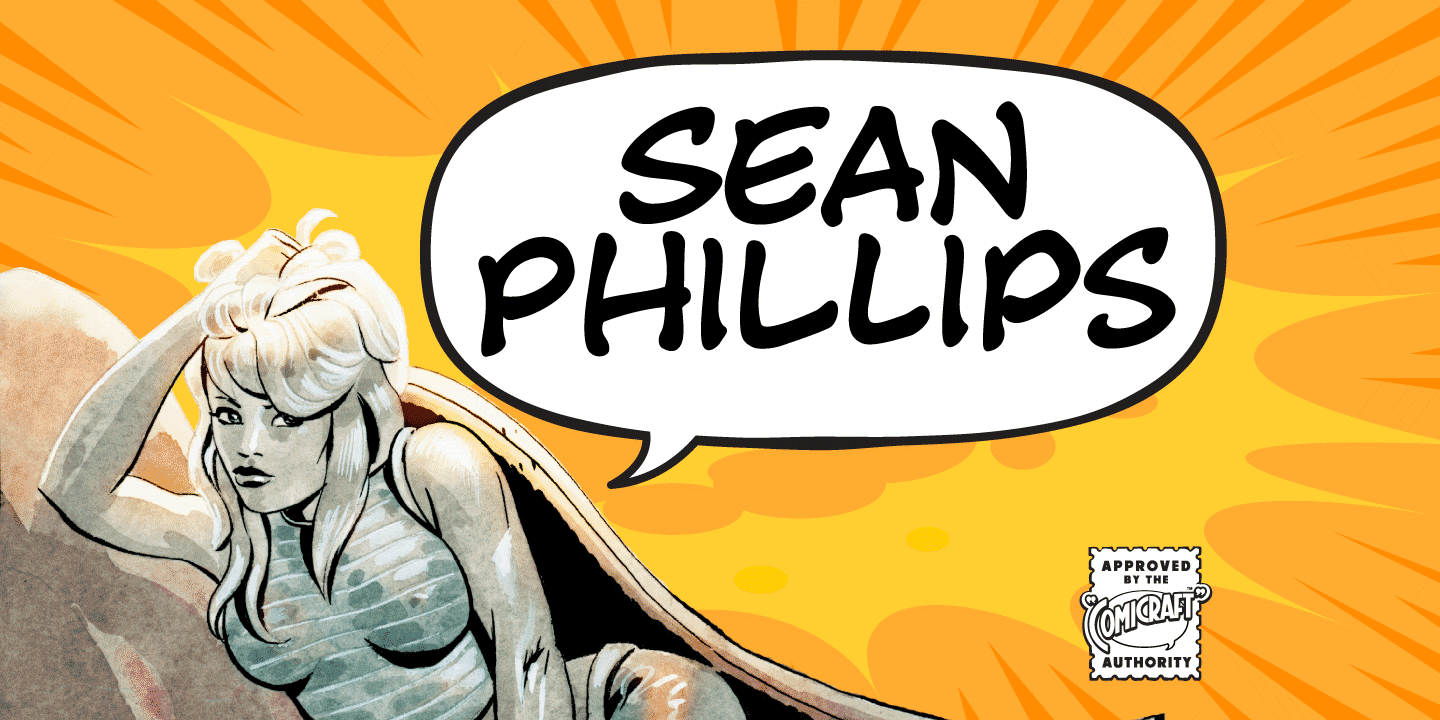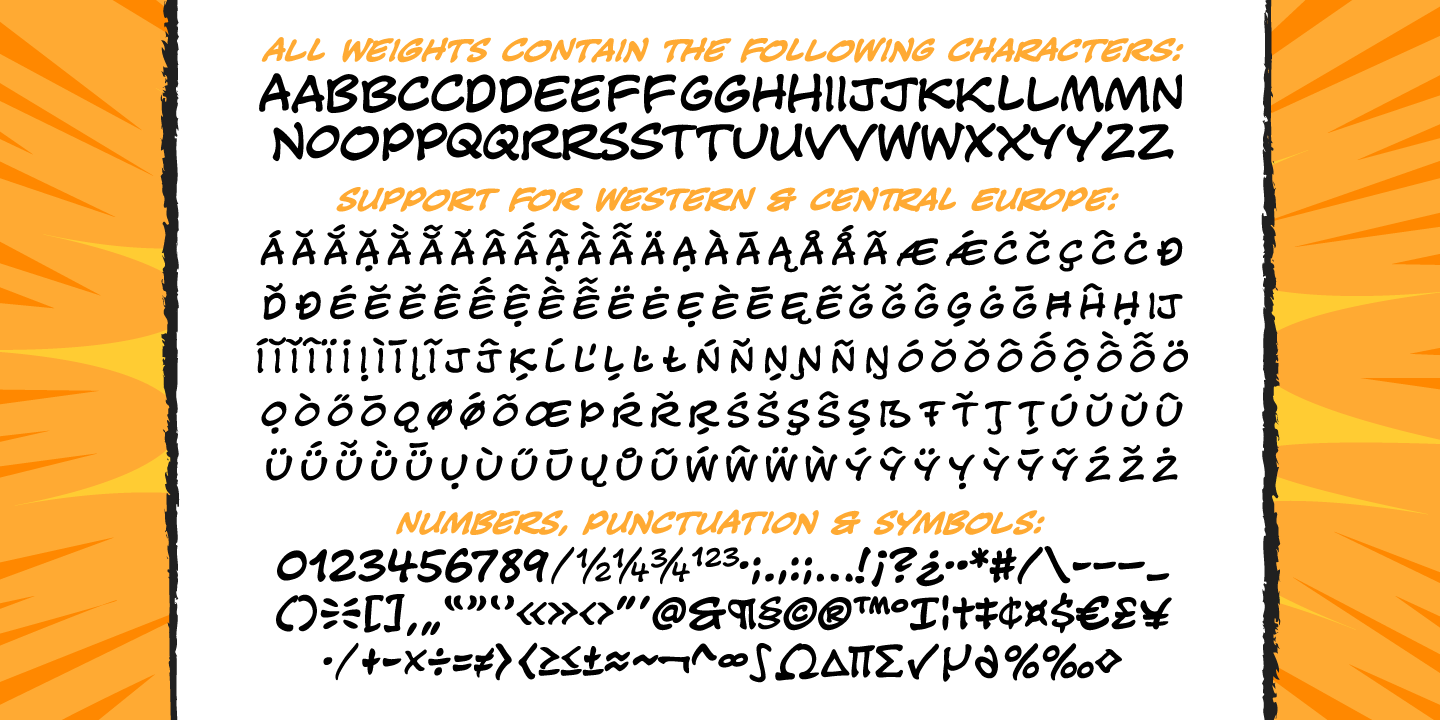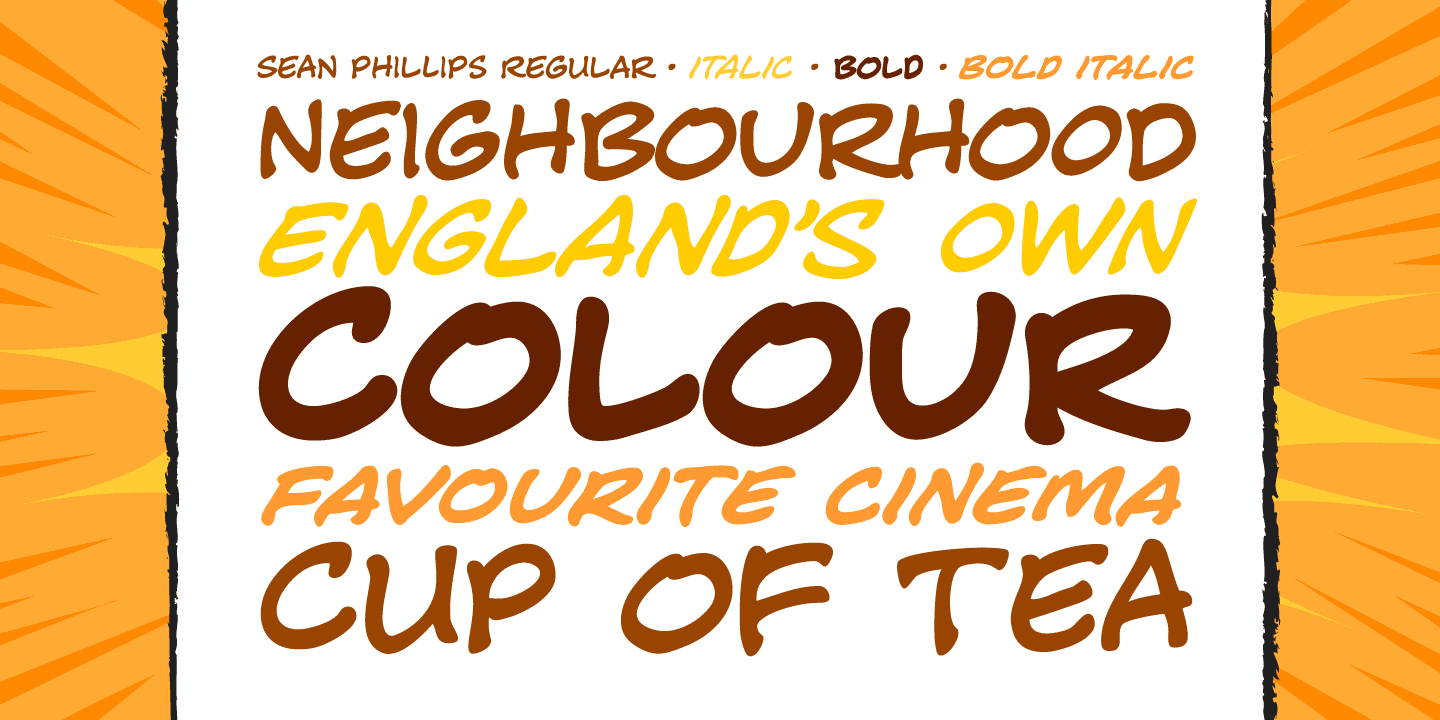
Sean Phillips
Font Family by Comicraft Fonts
England's own Sean Phillips wanted a lettering font to suit his distinctive work with Joe Casey on WILDCATS -- and we gave it to him! Of course, the tricky bit was working on Sean's Northern accent, and making sure that every time words like color, favorite and neighborhood popped up, the letter "u" was correctly inserted. Sean's font has now undergone months of Beta testing and is now ready for release to the public. Yes, Sean Phillips, your favourite British Master of Comic Book Art is coming to a neighbourhood near you soon -- now in Full Colour!